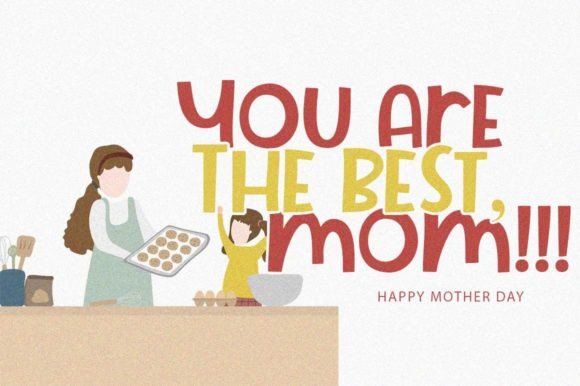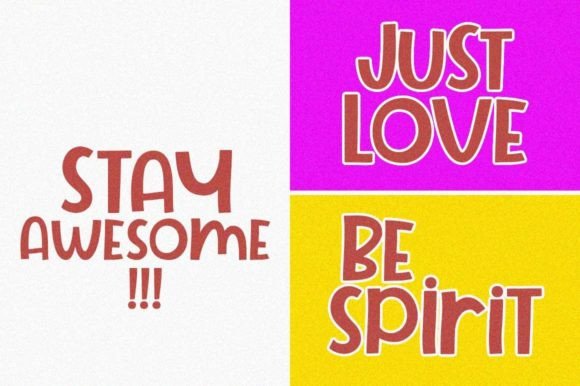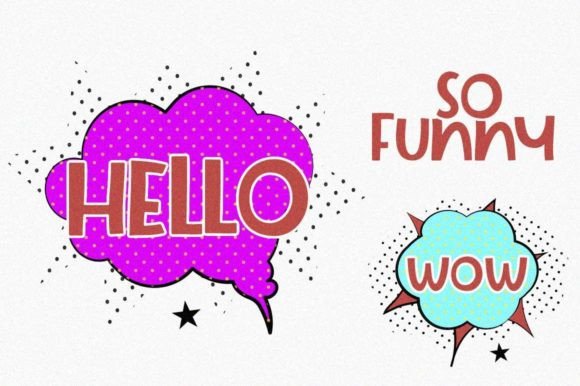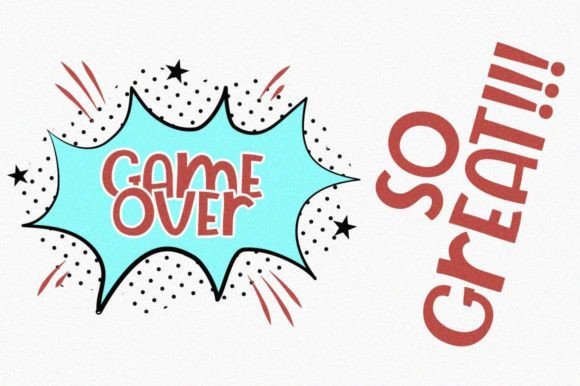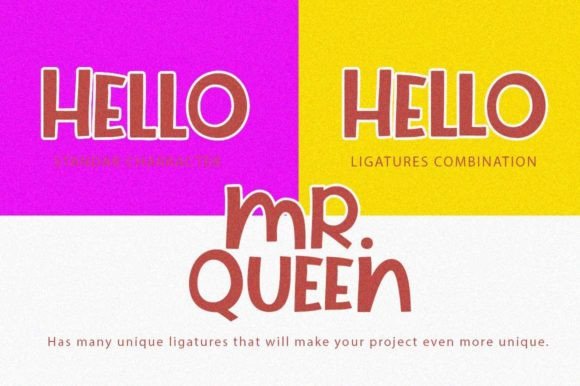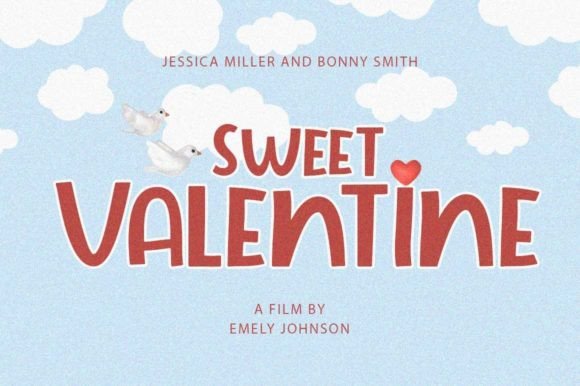
Introduction to Mrqueen Font Font
Fonts play a crucial role in design, and the Mrqueen Font font is a typeface that brings both character and versatility to any project. Whether you’re working on a branding project, a website, or a print design, the Mrqueen Font font offers a unique style that can elevate your work.
MrQueen is a stylish and charismatic decorative font.
Because of its versatile style, this font can be used to create attractive party invitations, engaging posters, and all kinds of crafts that you have in mind The font is PUA encoded which means you can access all of the glyphs and ligatures freely.
The Mrqueen Font font is more than just a typeface – it’s a design tool that helps you communicate your message with style and clarity. Its unique character set and versatile design make it suitable for a wide range of applications, from elegant invitations to bold headlines.
With its carefully crafted letterforms and balanced proportions, the Mrqueen Font font ensures readability and visual appeal across all mediums.
The Mrqueen Font font stands out with its unique design, exceptional readability, and versatility across various design applications.